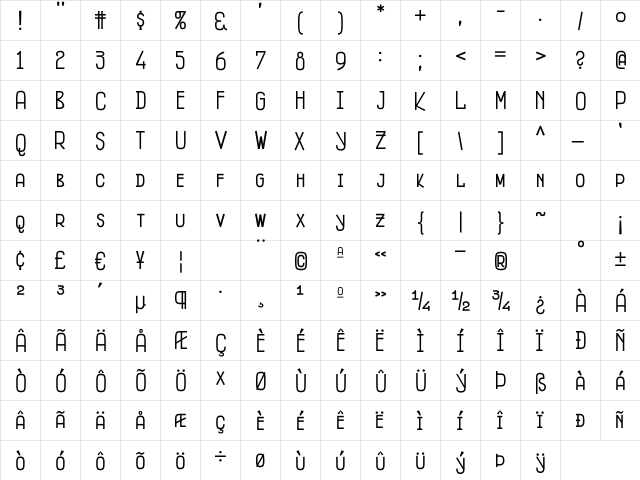
Fitzgerald Regular
| Foundry | Objets Dart |
| Designer | Darren Rigby |
Design Context for Fitzgerald Typeface
Fitzgerald is a composed and adaptable typeface that performs quietly and consistently across a wide range of design contexts.